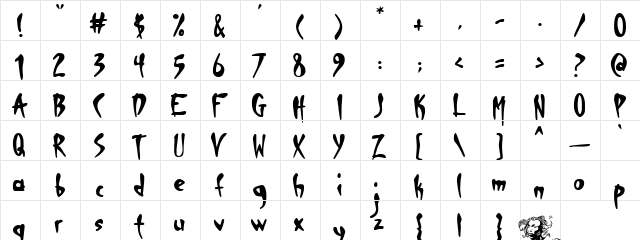
Deranger Normal
Design Context for Deranger Typeface
Deranger is a composed and adaptable typeface that performs quietly and consistently across a wide range of design contexts.